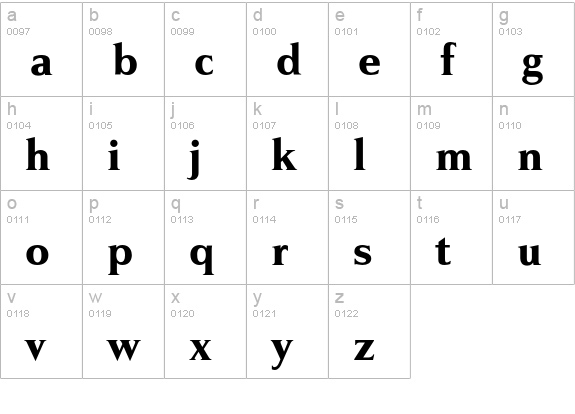
Pompei Std Bold is a strong, high-contrast variant in the Pompei typeface family \xE2\x80\x94 well suited to headlines, attention-grabbing titles, and strong calls-to-action.